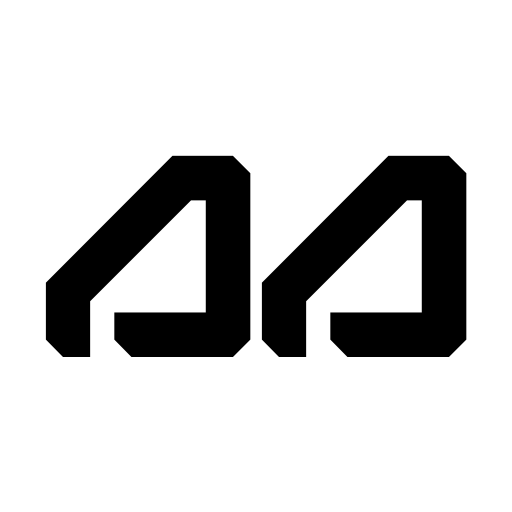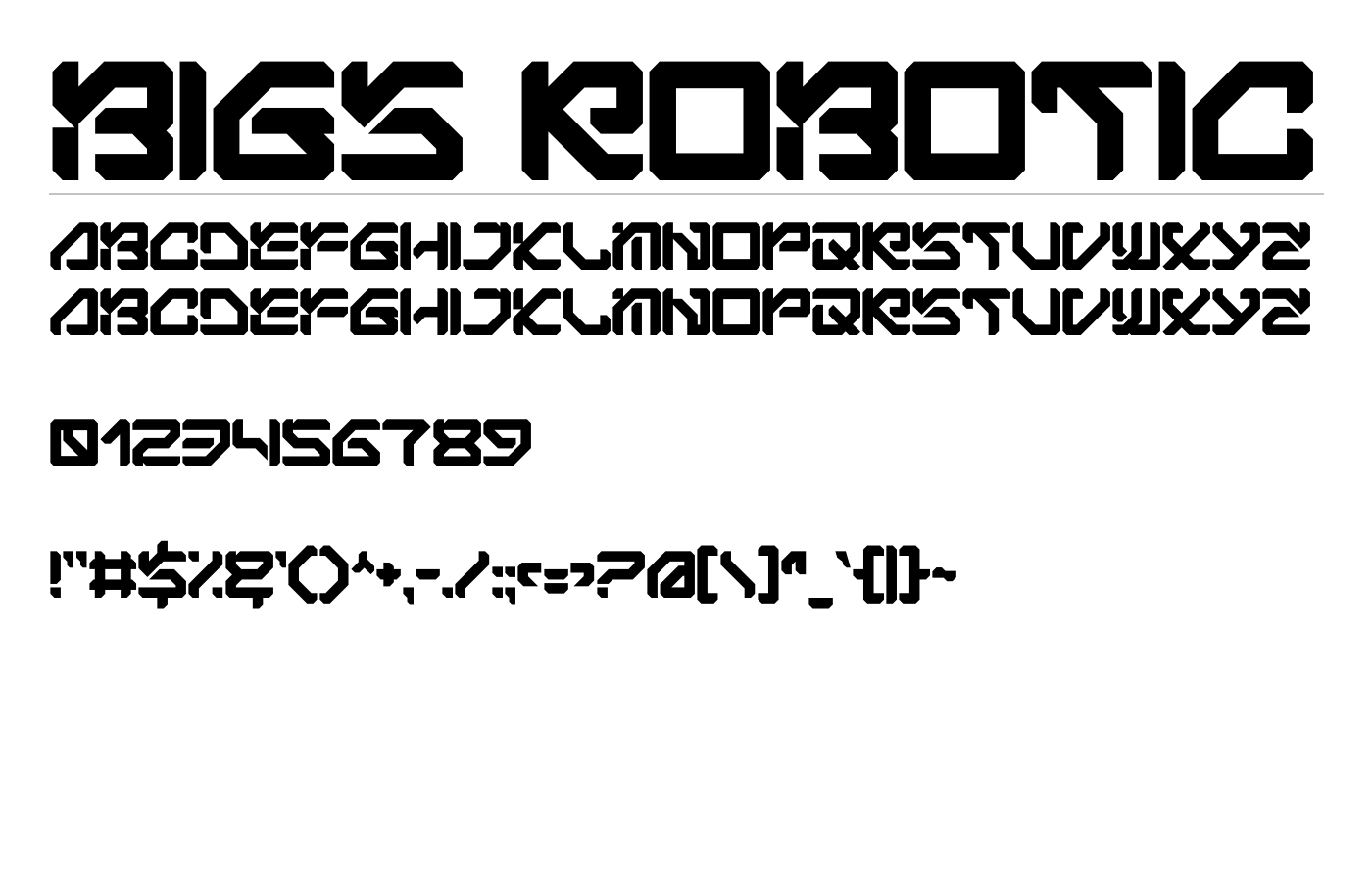
Bigs Robotic is a bold, geometric sans serif font with a futuristic and technical feel. Its blocky, angular shapes and unique cutouts give it a strong mechanical personality, making it ideal for technology, gaming, or sci-fi branding and headlines where a modern, assertive look is desired. This font works best in large sizes for impactful titles and logos rather than body text due to its distinct and stylized letterforms.
Bigs Robotic Font
About Bigs Robotic Font
| Font family | Bigs Robotic Font |
| Designer | Asep Saefulloh |
| Trademark | Figuree Studio x Asf Graphics |